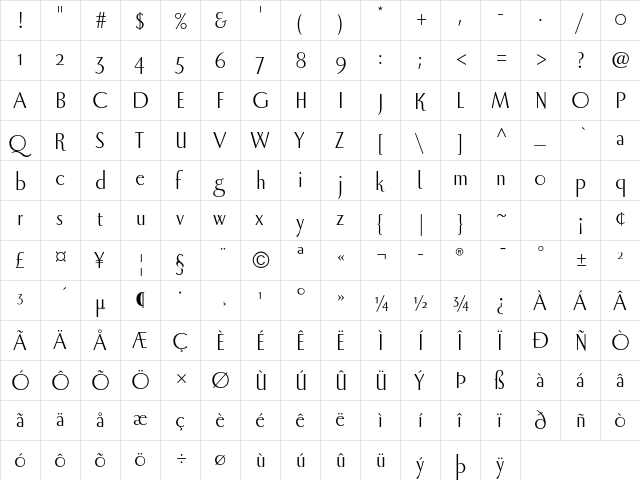
Luna ITC Std Regular
| Designer | Akira Kobayashi |
Design Context for Luna ITC Std Typeface
Luna ITC Std is a composed and adaptable typeface that performs quietly and consistently across a wide range of design contexts.